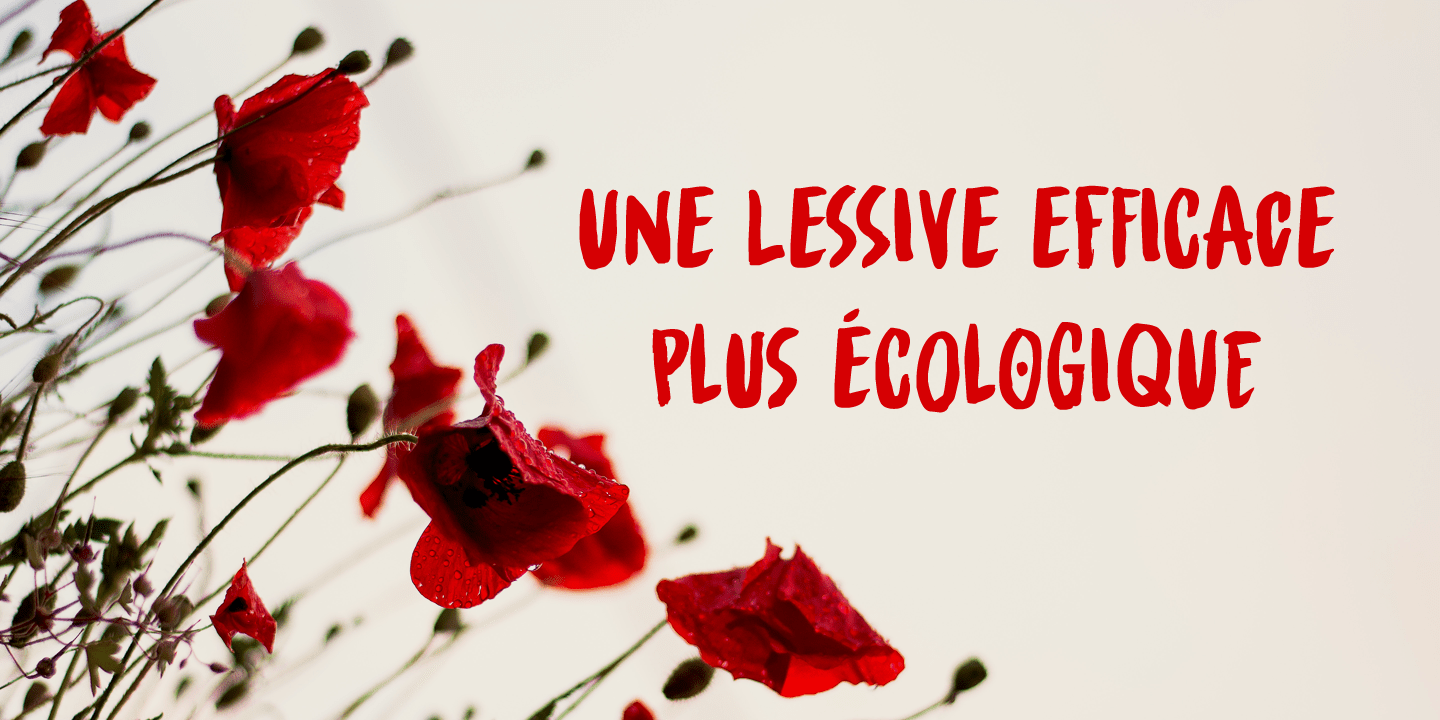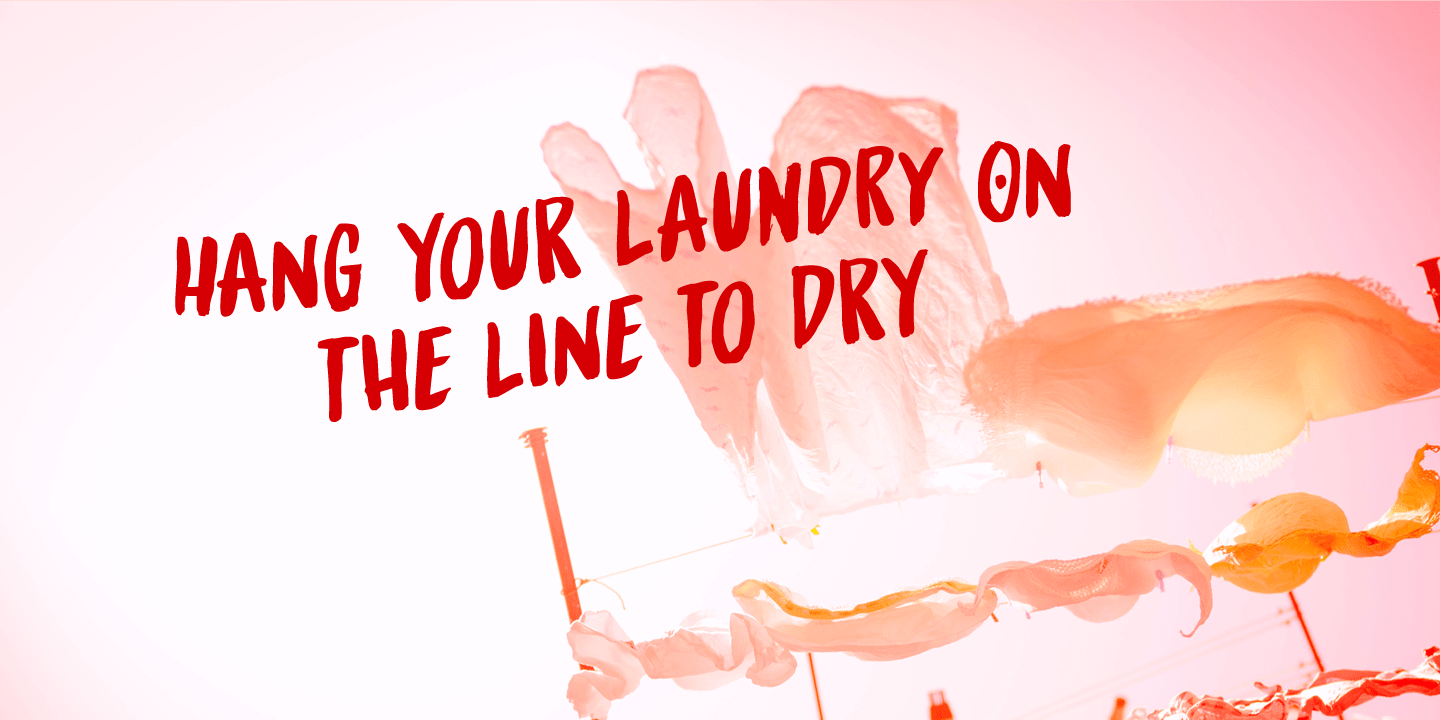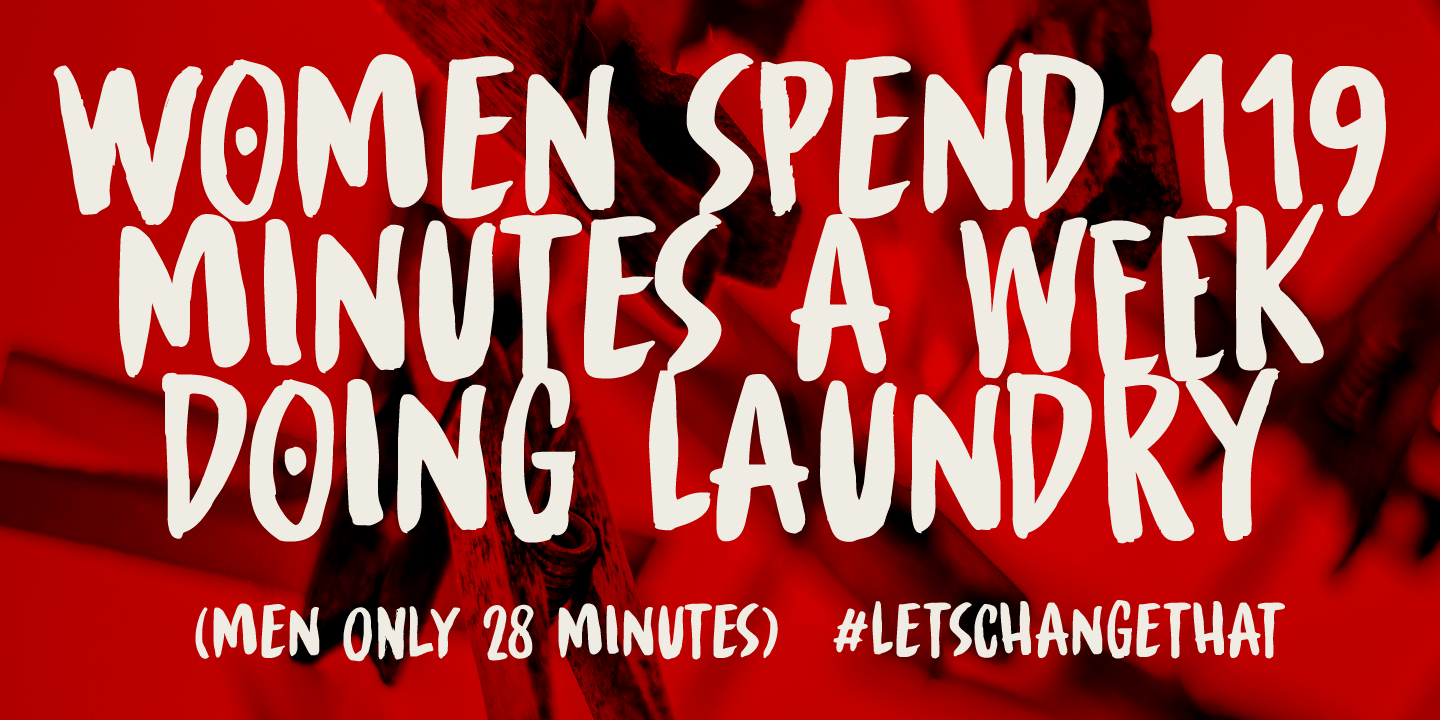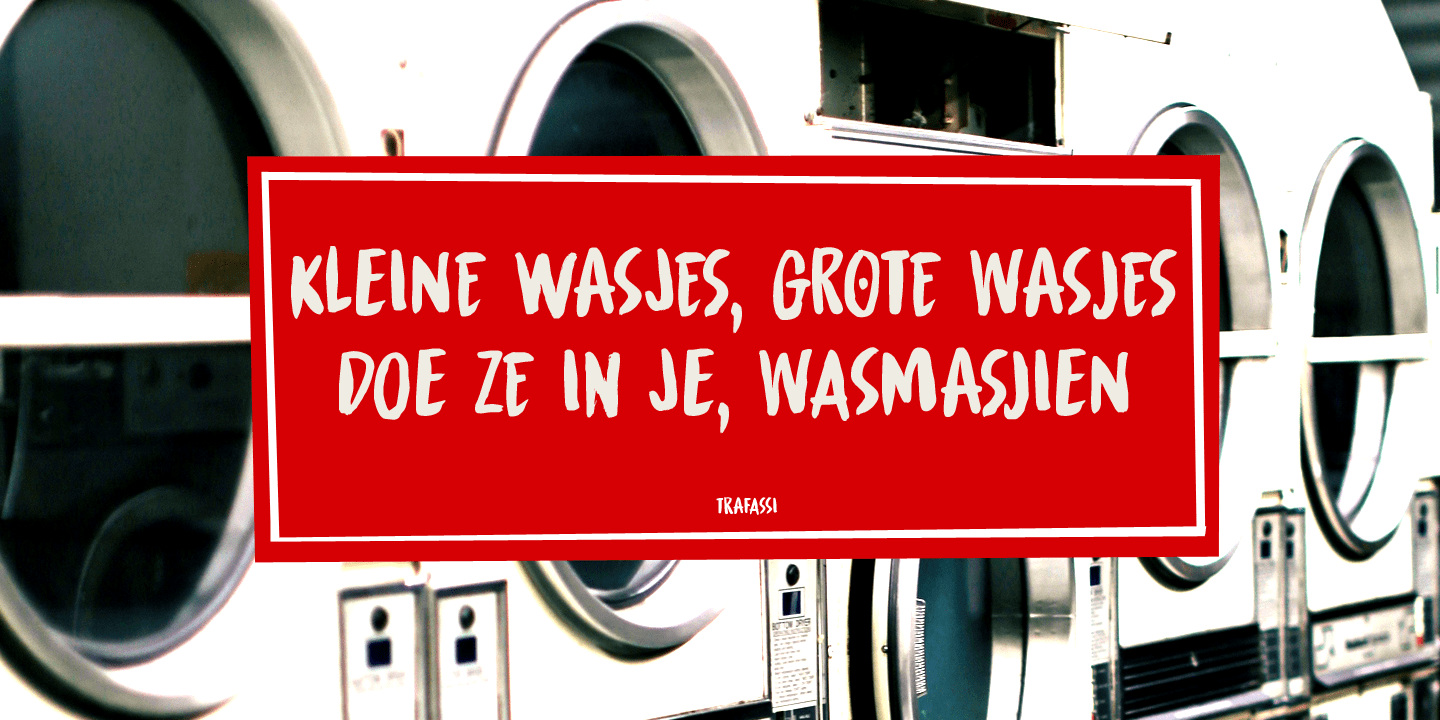
About Spinwash
It is amazing how much laundry I have with 3 small kids! Sometimes it feels like I spend half the week sticking laundry in the machine, or hanging it out to dry. Spinwash is a nice brush font. It smells like \’summer breeze?, is 100% environment friendly…